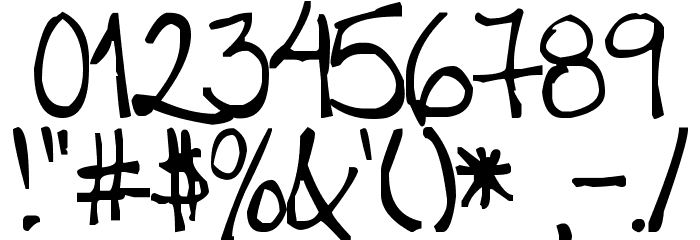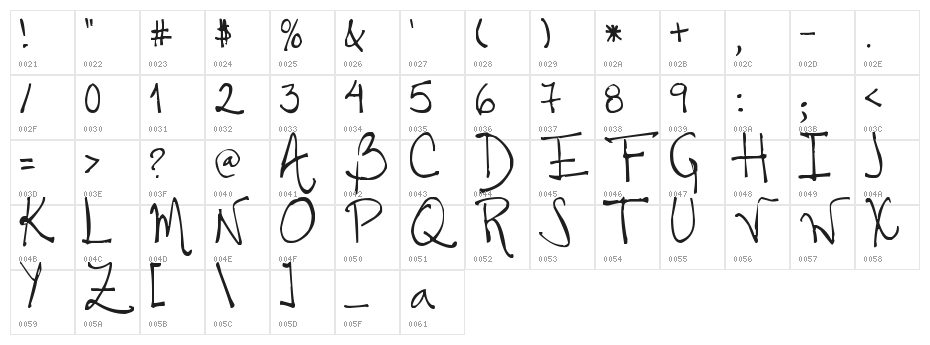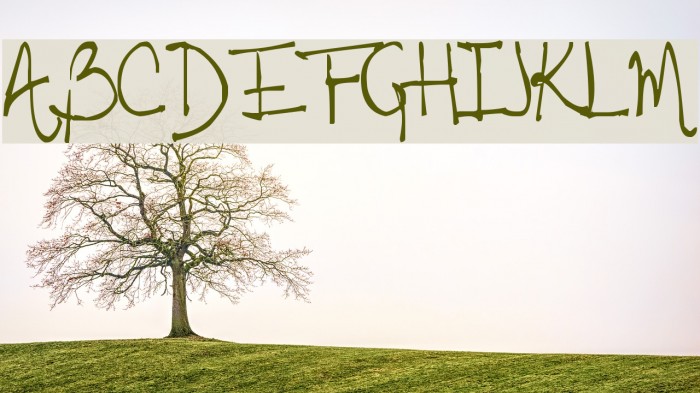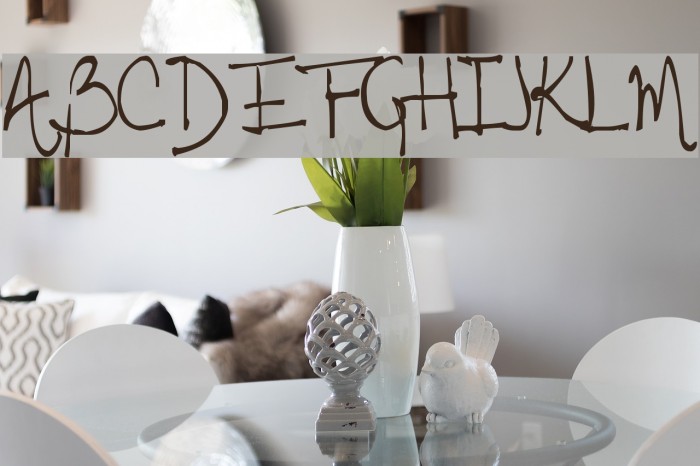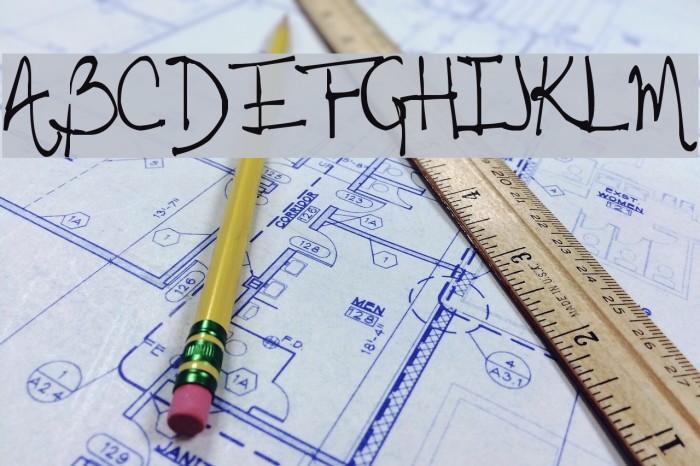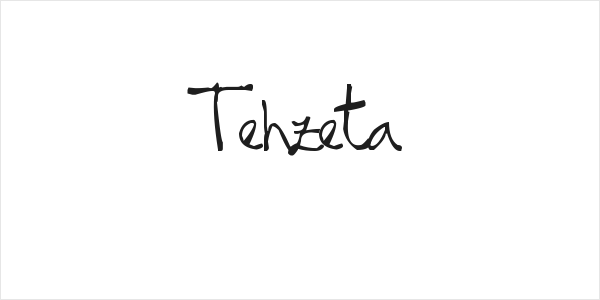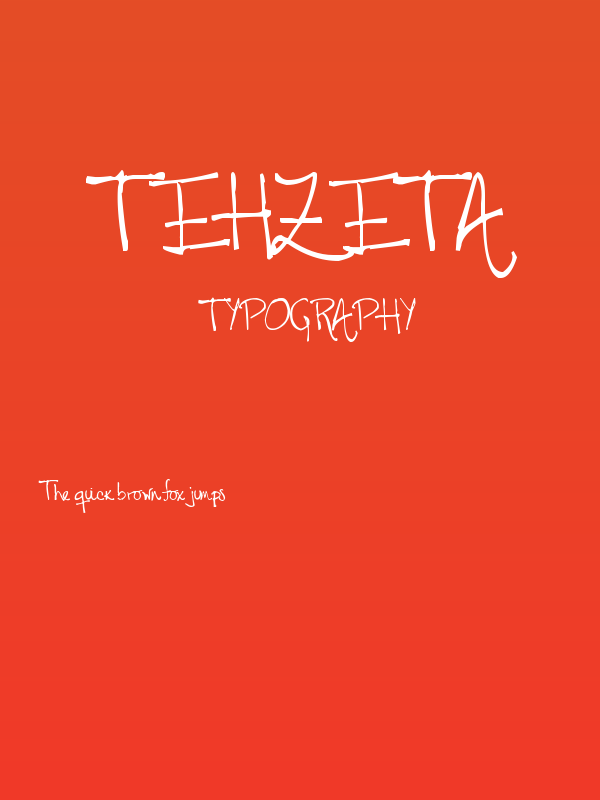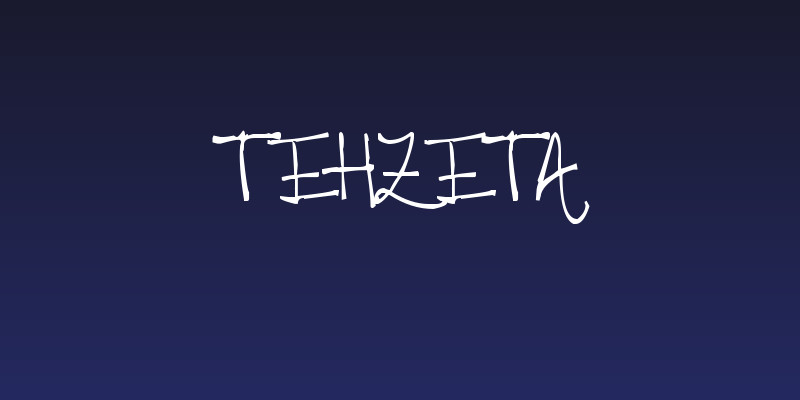
Tehzeta Font
Tehzeta Description
This font exhibits a playful and energetic handwritten style, characterized by its irregular and dynamic strokes. The letters vary in height and width, giving it a casual and informal appearance. The uppercase letters are bold and slightly tilted, while the lowercase letters maintain a consistent flow with a touch of whimsy. Numbers and special characters follow the same lively design, making the font suitable for creative and artistic projects. The overall look is reminiscent of a spontaneous handwritten note, adding a personal touch to any design.
| Use Case | Headlines, Creative projects, Informal text |
| Proposed Projects | Ideal for greeting cards, children's books, creative posters, and personal branding. |